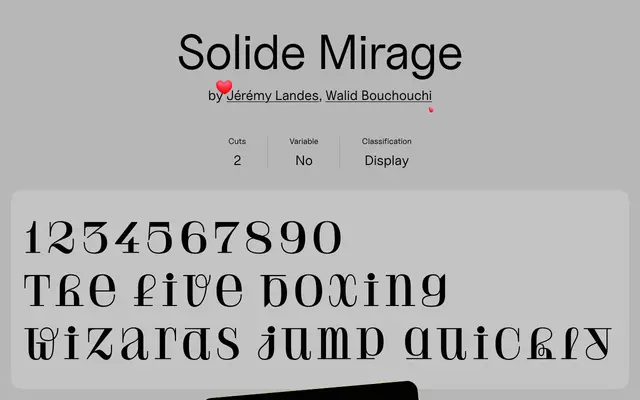
Solide Mirage
A two-cut display typeface by Jérémy Landes and Walid Bouchouchi, released under the SIL Open Font License for free commercial use.
Designed by Jérémy Landes and Walid Bouchouchi, Solide Mirage comes in two cuts and is classified as a display typeface. It is available under the SIL Open Font License 1.1, permitting commercial use, modification and redistribution with conditions. No variable font axis is offered.
Classified as Display by the foundry itself; the name and two-cut structure suggest a decorative or expressive face intended for headline use rather than continuous text.